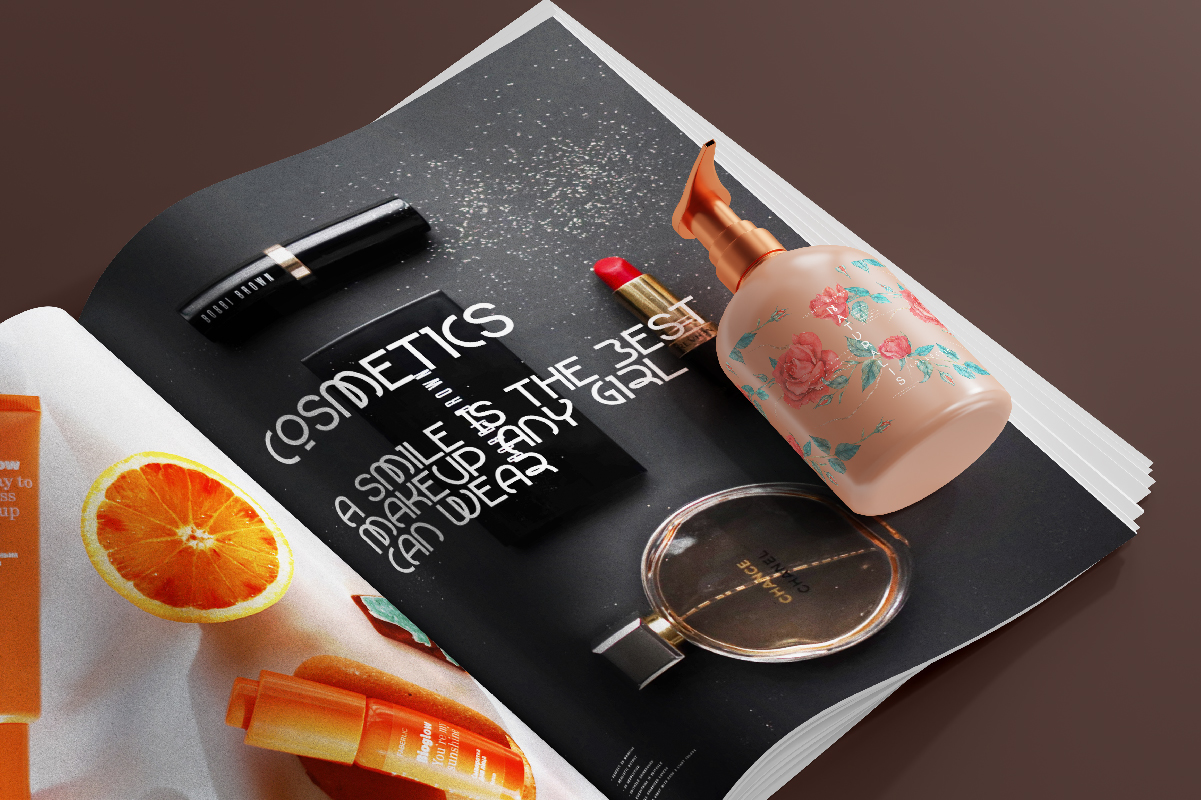
Morgan Nicolai Font
Morgan Nicolai Display Font
This is a unique display font with modern and sophisticated style. Inspired by plants branches and flower with a refreshing natural concept in every curve of the line. This font will be perfect for many projects such as brand logo, business card, label, magazine design, product packaging design, signage, website, and for any businesses such as bakery, café, cosmetic, fashion, florist, furniture, pastry, restaurant, etc.